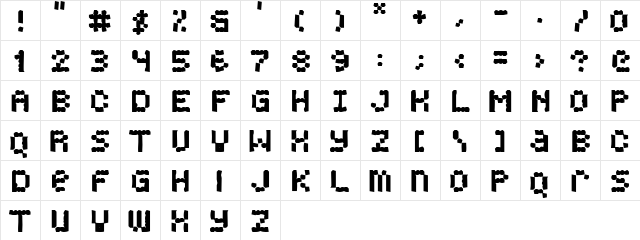
RefundBold Regular Font Preview
RefundBold Regular
RefundBold Regular Font Details
Design Context for RefundBold Typeface
RefundBold trades formality for fun, with bouncy, characterful letterforms that bring warmth and energy to any project.
Font Pairing: Pairs well with a rounded or humanist sans for body copy, maintaining the friendly tone without relying on RefundBold to carry extended reading.
Pro Tip: Use RefundBold at larger display sizes where its expressive character can land. Pair with a clean, simple sans for body copy to maintain readability.